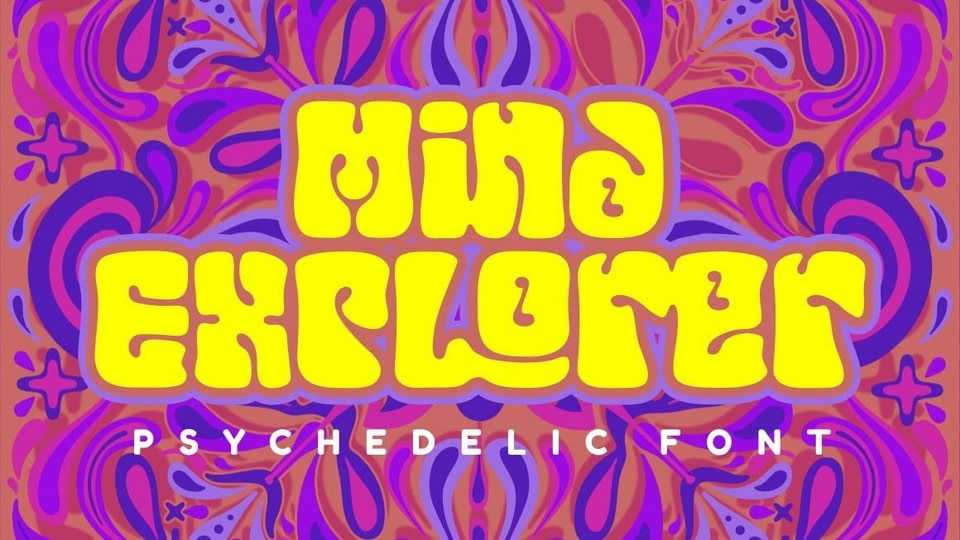
Download Mind Explorer font, a psychedelic display font inspired by vintage albums and posters from 1960s music bands. The classic, fun, and groovy impressions are visible and combined with several variations of ligatures to create an even more unique and different look.
Designer: PutraCetol Studio